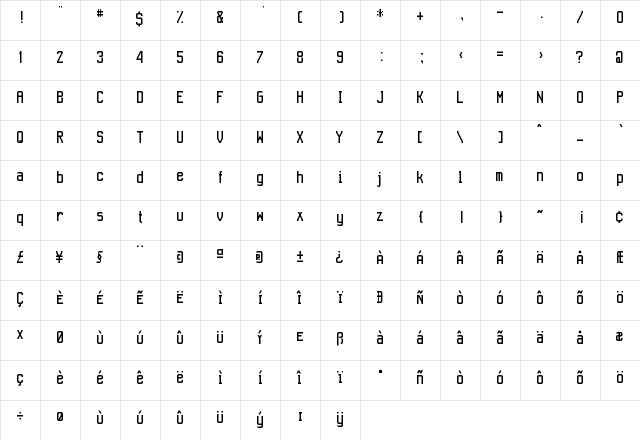
Aeroport Regular
| Designer | Jeffrey Visser |
Design Context for Aeroport Typeface
Aeroport takes a measured approach to typography — its balanced proportions and neutral character make it a reliable workhorse for both digital and print work.